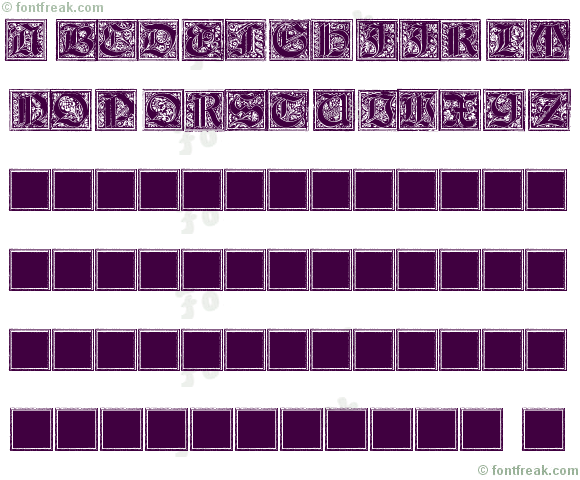
Camelot_Initials
About Camelot
Camelot, designed by Paul Lloyd, is a stunning display font that beautifully blends elegance with creativity. This freeware typeface features a unique serif style that captures attention with its graceful curves and sophisticated lines. The strokes exhibit a moderate weight, creating a balanced contrast that enhances readability while maintaining a decorative flair. The spacing between the characters is thoughtfully crafted, ensuring that each letter stands out without feeling cramped, making it ideal for various design applications.
The visual characteristics of Camelot make it an exceptional choice for projects requiring a touch of refinement. Its intricate serifs and stylish embellishments lend themselves perfectly to wedding invitations, where romance and elegance are paramount. Additionally, the font works wonderfully for movie posters, evoking a sense of drama and sophistication that can elevate any cinematic title. Restaurant menus can also benefit from Camelot's charm, creating an inviting atmosphere that entices patrons with its graceful presentation. Furthermore, this typeface is suitable for branding purposes, allowing small business owners to stand out with a memorable identity that reflects their unique style.
Graphic designers and content creators will find Camelot particularly appealing due to its versatility and distinctive aesthetic. The font's rich character set and elegant design elements offer endless possibilities for creative expression, making it a valuable addition to any designer's toolkit.
What sets Camelot apart is its ability to combine classic elegance with contemporary design sensibilities. This font not only captures the essence of refined typography but also invites creativity in its application. With its striking visual appeal and practical usability, the Camelot font free download is a must-have for anyone looking to enhance their design projects with a touch of sophistication and style.